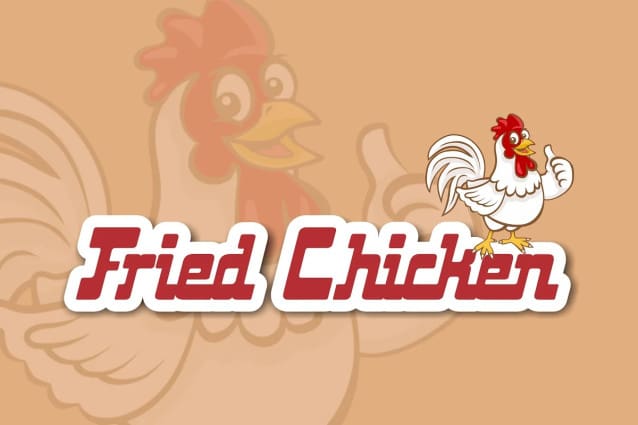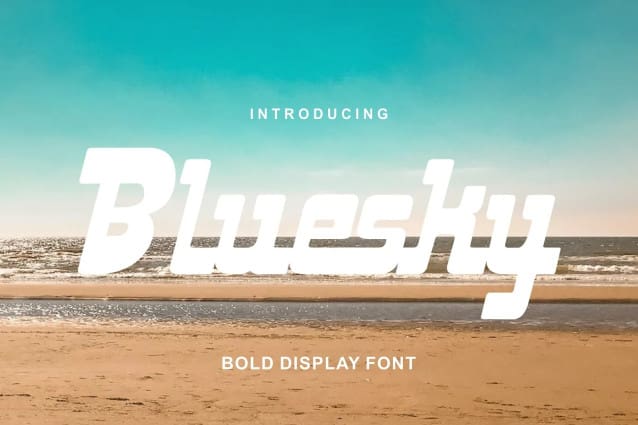
Bluesky Font
Bluesky Font is a bold, italic style display font, with a futuristic twist keeping the simplicity and unique shape. Bluesky can be used in various projects, such as product branding, logos, apparel greeting cards, sneakers, billboards, video graph, magazines, sports, and many others. give it a try you will definitely find more,….